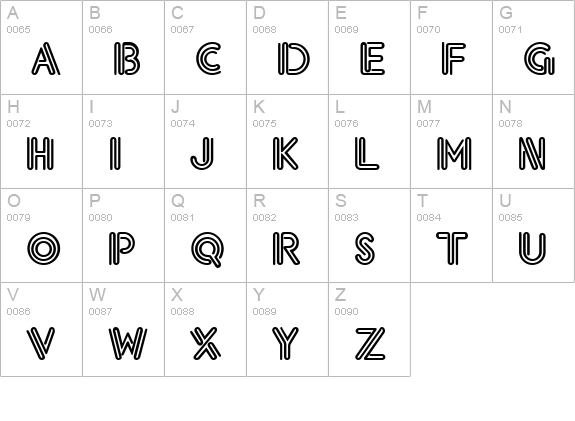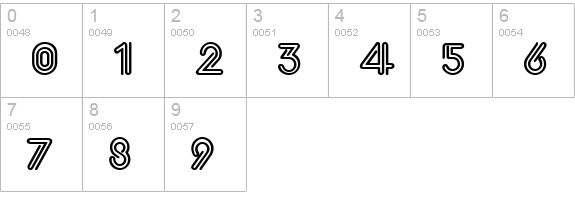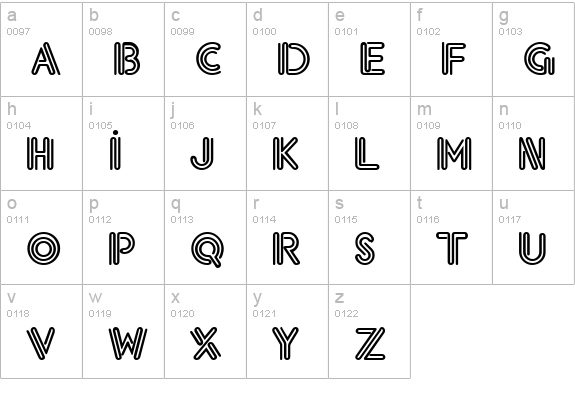
TR Eklektic Font Details
TR Eklektic is a unique and versatile font that combines modern characteristics with a touch of vintage elegance. This font is perfect for a wide range of design projects, from branding to editorial layouts. Its clean lines and stylish curves make it a standout choice for any creative endeavor. What makes TR Eklektic even more appealing is that it is available for free download at FontsMarket.com. This means you can easily access this high-quality font and enhance your designs without having to spend a penny. Don't miss out on the opportunity to elevate your projects with the timeless charm of TR Eklektic. Download it today and let your creativity soar.